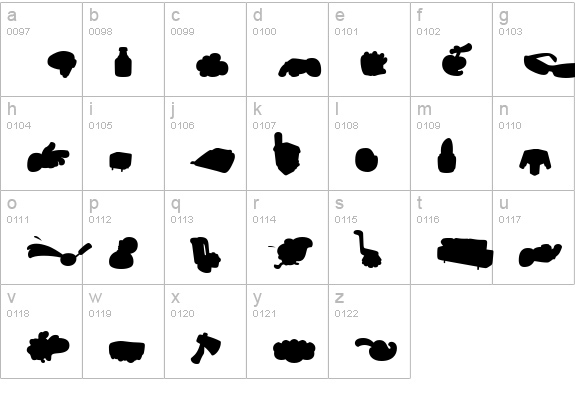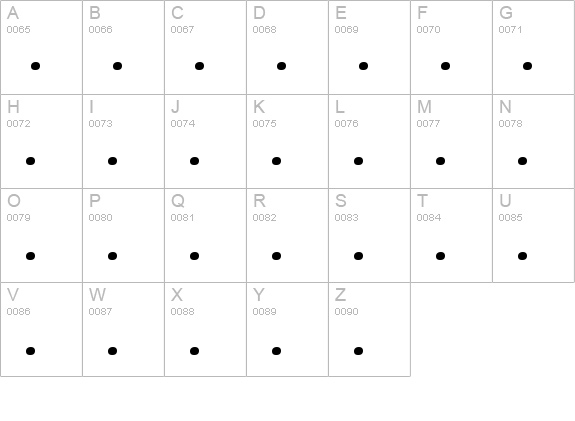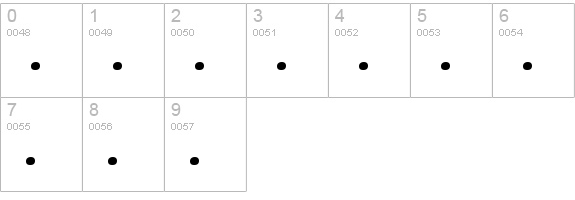
SaunaDingbats-Background Font Details
Introducing SaunaDingbats-Background, a captivating and versatile font that exudes an aura of warmth and relaxation. This unique typeface draws inspiration from the soothing ambiance of sauna retreats, making it the perfect choice for projects aimed at promoting wellness, tranquility, and self-care. SaunaDingbats-Background showcases an array of beautifully crafted symbols and icons that effortlessly capture the essence of a peaceful sauna experience. Each character is meticulously designed with intricate details, evoking a sense of serenity and rejuvenation. From steamy saunas to aromatic wooden buckets, this font allows you to effortlessly incorporate the essence of this therapeutic haven into your designs. What sets SaunaDingbats-Background apart is its availability as a free download. FontsMarket.com provides you with the opportunity to access this font without any cost, enabling you to enhance your creative projects without breaking the bank. With its wide range of symbols and icons, this font becomes an invaluable asset for designers, bloggers, wellness enthusiasts, and anyone seeking to infuse their work with a touch of tranquility. From spa brochures to wellness websites, SaunaDingbats-Background effortlessly complements a variety of design projects. Its versatility and adaptability ensure that it can be used across various media, including digital and print platforms. Whether you're creating a logo for a wellness center, designing a magazine cover, or adding a touch of charm to your social media posts, this font will elevate your visuals and make a lasting impression on your audience. With SaunaDingbats-Background, the possibilities are endless. Its rich collection of symbols and icons allows you to add a touch of elegance and sophistication to your designs, while its availability as a free download ensures that creativity knows no bounds. So why wait? Visit FontsMarket.com today and discover the captivating world of SaunaDingbats-Background font, where tranquility and creativity intertwine seamlessly.